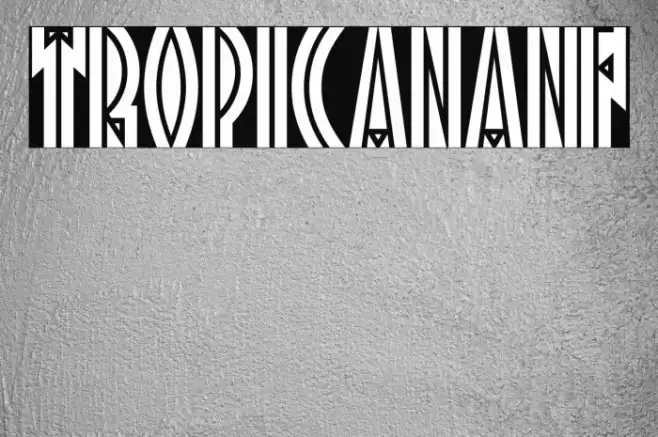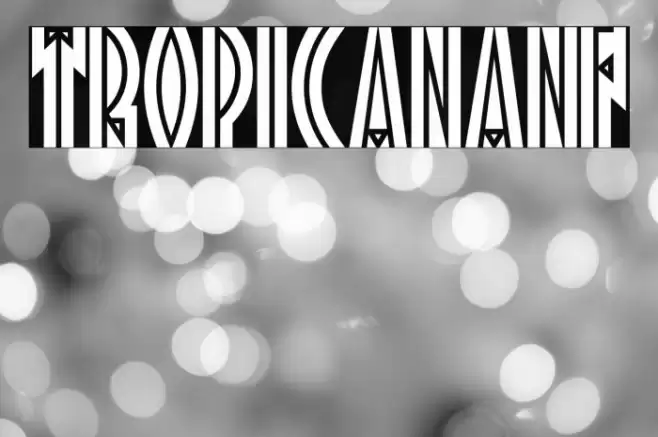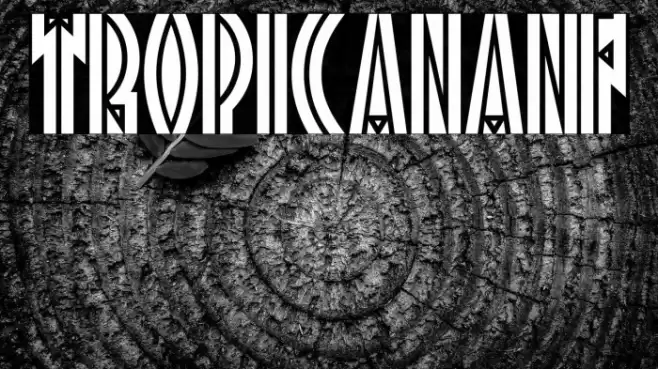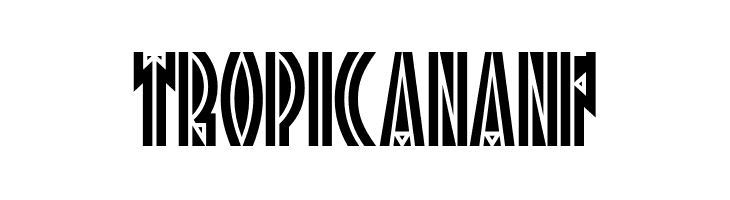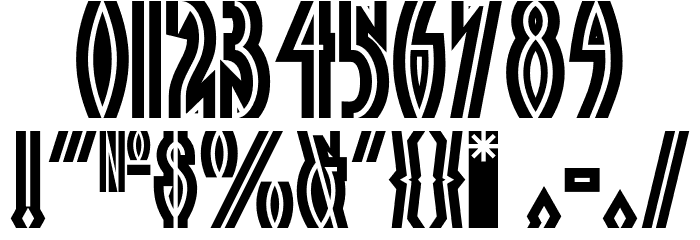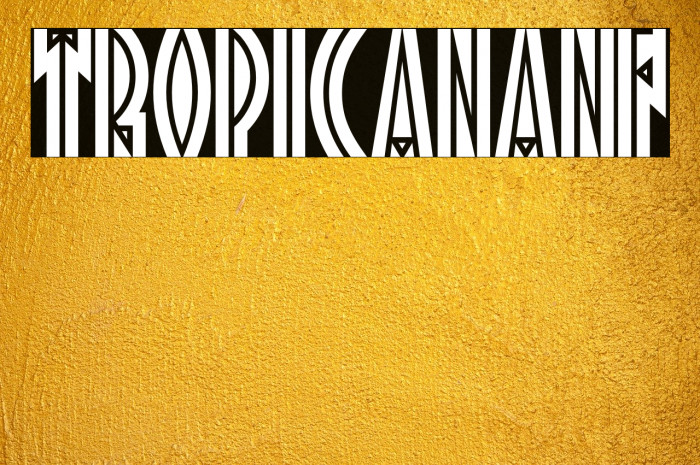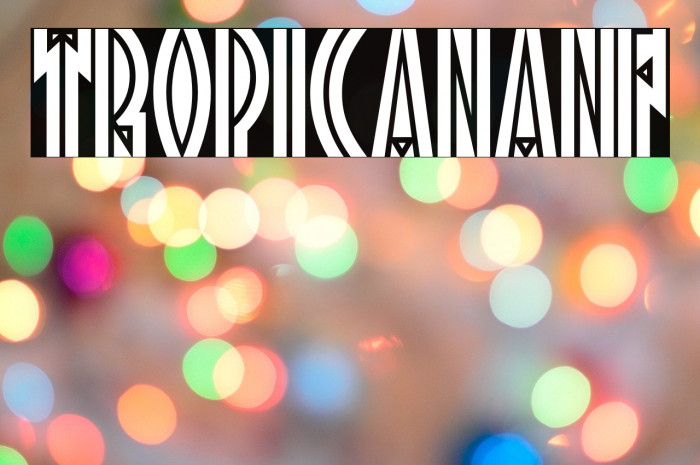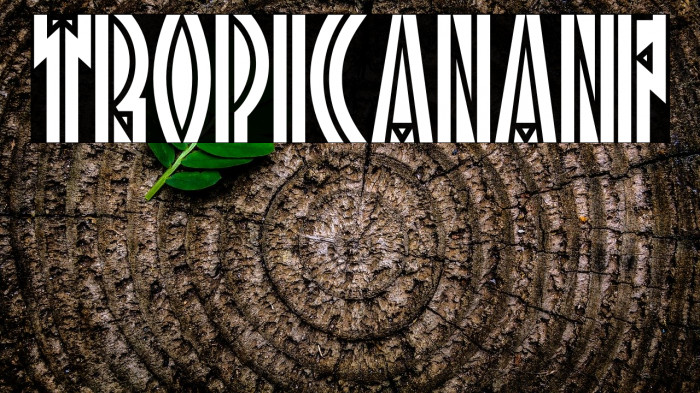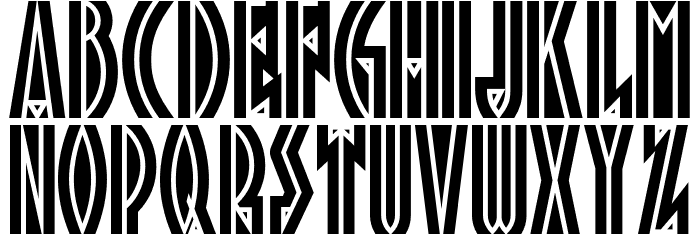
TropicanaNF Font
TropicanaNF Description
This font features a bold and striking design with geometric elements and high contrast. The characters are tall and narrow, with sharp angles and unique cutouts that create a dynamic and eye-catching appearance. The uppercase and lowercase letters maintain a consistent style, emphasizing vertical lines and symmetry. The numbers and special characters follow the same bold and geometric theme, making the font suitable for attention-grabbing headlines and artistic designs. Its distinct style makes it ideal for projects that require a strong visual impact.
A bold, geometric font with high contrast and unique cutouts.
- Proposed Projects: Ideal for posters, logos, album covers, and branding materials that require a bold statement.
- Character Spacing: Tight